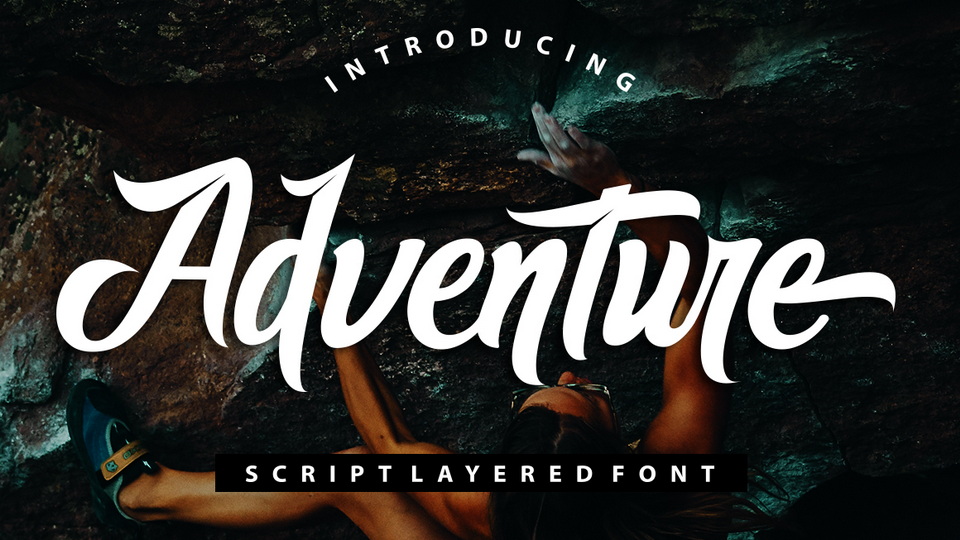
Feb 6, 2025Script & HandwrittenAdventure Font Adventure is a striking hand lettered font. It has a young, passionate design and is perfect for logos, t-shirts, branding, and more. Font DetailsDesigned by: Musafir LABWebsiteLicense: Free for commercial use Download Adventure FontFile size: 93.79 KBCreated: February 16, 2025Updated: February 16, 2025 Download Explore similar fonts Revival Analog Font Shorebreak Script Font Barsey Font Pinbrush Font Kendale Sterling Font Frames Jurney Font # Bold# Brush# Handwriting# Vintage More fonts by Musafir LABAngellie ScriptBreather ScriptCalling FontAdrenaline FontCadosa ScriptAutines ScriptWedding FontHunting Script